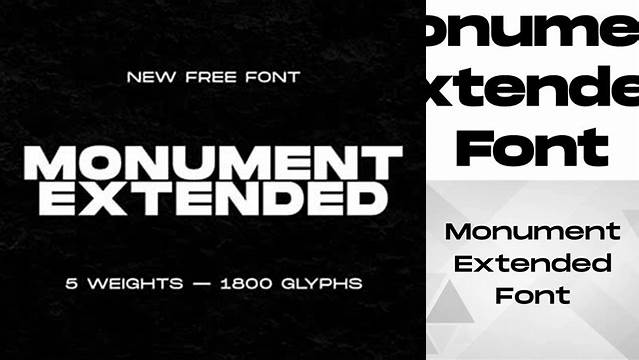
Monument Extended Black Font: Free Download & Guide
Hey guys! Are you on the hunt for a super cool, bold font to spice up your designs? Look no further because we're diving headfirst into the world of the Monument Extended Black font! This bad boy is a real head-turner, perfect for making a statement in your projects. And the best part? You can snag a Monument Extended Black font free download! Let's get you hooked up with everything you need to know, from grabbing the font to using it like a pro. Buckle up, it's going to be a fun ride!
Why Monument Extended Black Font is a Design Game-Changer
Okay, let's get real for a sec. Why should you even care about the Monument Extended Black font? Well, imagine you're working on a poster, a website header, or even a logo. You want something that screams confidence, modernity, and maybe a touch of edgy coolness, right? That’s where this font shines! The Monument Extended Black font is the superhero of the font world, swooping in to save your designs from being bland and boring. This font is all about impact. Its extended and bold nature makes sure that whatever text you use it for will immediately grab the viewer's attention. Think of it like this: you're at a crowded party, and you want to make sure everyone hears what you have to say. You wouldn't whisper, would you? You'd shout it from the rooftops! That's what this font does for your text. It’s not just about being big; it's about being bold. The heavy strokes and the way the letters are designed give off a vibe of strength and stability. This makes it an excellent choice for anything that needs to convey trust or authority – think of a professional website, a company's branding, or even a headline for a news article. The Monument Extended Black font is versatile, and can be used in all sorts of different projects. Whether you're a seasoned designer or just starting out, you can make use of this font. But the best thing about the Monument Extended Black font is that it is easy to read, and even with its heavy design, it keeps everything very clear. Even from a distance, or in smaller sizes, your text is very visible. So, whether you're a graphic designer, a web developer, or just someone who loves to create cool stuff, the Monument Extended Black font is definitely one to have in your toolkit. It's like adding a turbocharger to your design arsenal! It's not just about making things look good; it's about making them memorable. Ready to take your designs to the next level? Let's explore the world of this incredible font together!
Understanding the Extended Black Font Style
Let's break down what makes the Monument Extended Black font so special, shall we? The key here is understanding the 'extended' and 'black' parts. 'Extended' means that the letters are wider than usual, stretching out horizontally. This gives the font a broader, more imposing presence. Think of it like this: instead of a tall, skinny model, you have a wide, strong athlete. The wider stance makes the text feel solid and impactful, perfect for grabbing attention. Then there's the 'black' aspect. In the font world, 'black' refers to the weight or thickness of the strokes. The Monument Extended Black font is, as the name suggests, a very heavy font. The strokes are thick and bold, making the text highly visible and robust. This combination of extension and boldness is what gives this font its unique character. It's powerful, commanding, and a little bit assertive. It's the kind of font that doesn't whisper – it shouts. This makes it ideal for headings, titles, and anything that needs to stand out. It's the perfect choice when you want to make a statement. When you use the Monument Extended Black font, you're not just writing words; you're making a declaration. You're saying, "Look at me! Pay attention!" And in a world where we're bombarded with information, that kind of impact is gold. So, whether you're working on a logo, a poster, or a website, remember that the Monument Extended Black font is your secret weapon for creating designs that demand attention. It's time to unleash the power of this amazing font!
Conclusion: Unleash the Power of Monument Extended Black
Alright, guys, we've covered everything you need to know about the Monument Extended Black font! From getting your free download to using it like a pro in your designs, you're now equipped to make some serious design magic. Remember that this font is all about making a statement. It's bold, it's modern, and it's perfect for projects that need to stand out. So go out there, experiment with this awesome font, and let your creativity run wild. Happy designing!